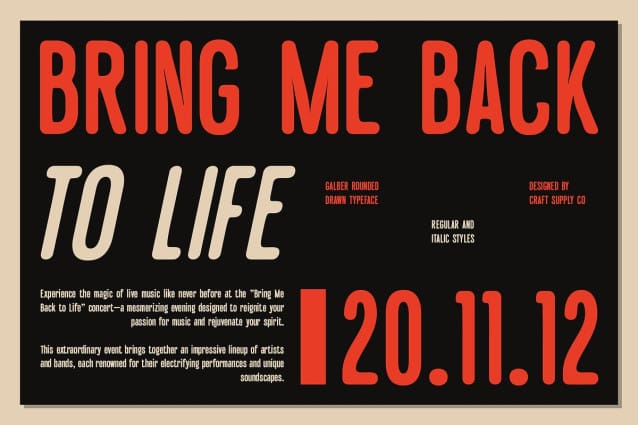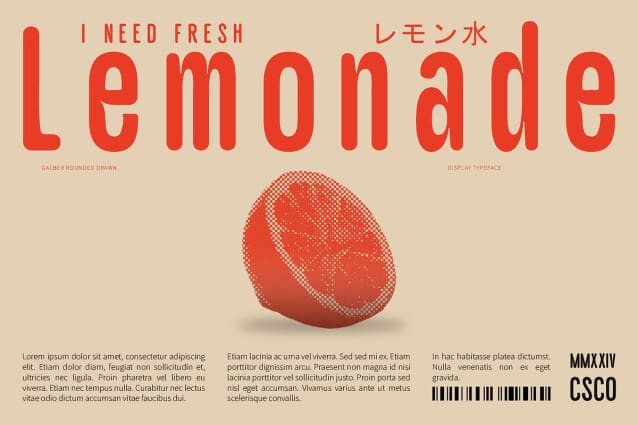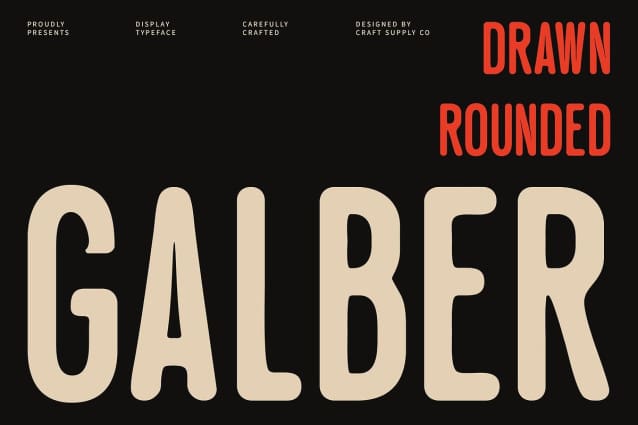
Galber Rounded Drawn Font
Galber Rounded Drawn Font is a modern sans-serif font that blends condensed, rounded shapes with a distinctive drawn effect. Its slim, rounded letterforms create a space-efficient design, while the rounded edges infuse a sense of softness and warmth. The hand-drawn effect adds an artistic and personal touch, giving the font a unique character and enhancing its visual appeal.
Balancing Modernity with Creativity The combination of rounded shapes and a drawn effect offers a perfect balance between modern design and creative expression. The font’s artistic flair makes it stand out with a distinctive and friendly style, ideal for applications that require both contemporary and imaginative elements. Its versatility is perfect for branding, advertising, and promotional materials that aim to capture attention with a stylish and approachable look.
Ideal for Branding and Promotion This rounded drawn font excels in various design contexts, including branding, advertising, and promotional materials. Its unique blend of modernity and creativity ensures that it highlights a distinctive and engaging style, making it a compelling choice for projects seeking to convey a contemporary yet personal touch.